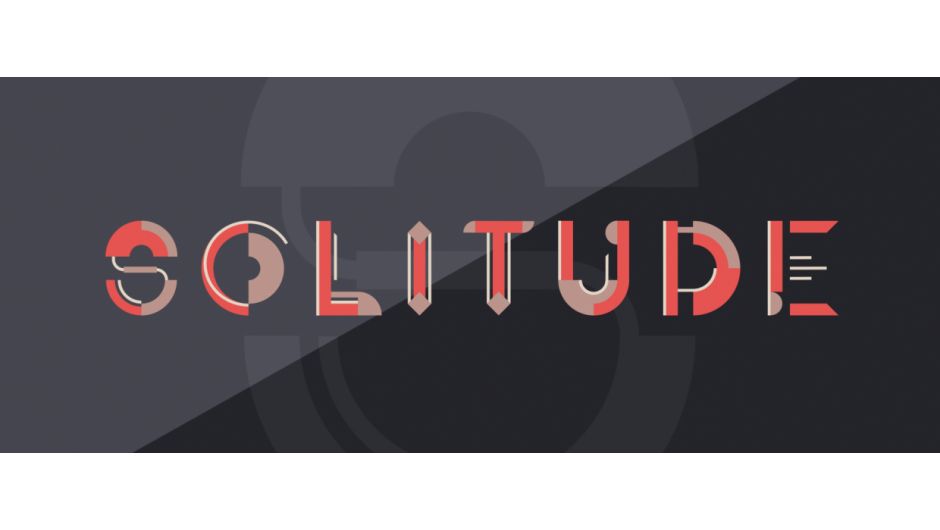
Solitude Animated Typeface
A uniquely animated headline font. Contains 26 capital letters and 10 numbers all designed around geometric shapes.
• All 26 animated letters and number
• Built entirely with shape layers so is fully customisable